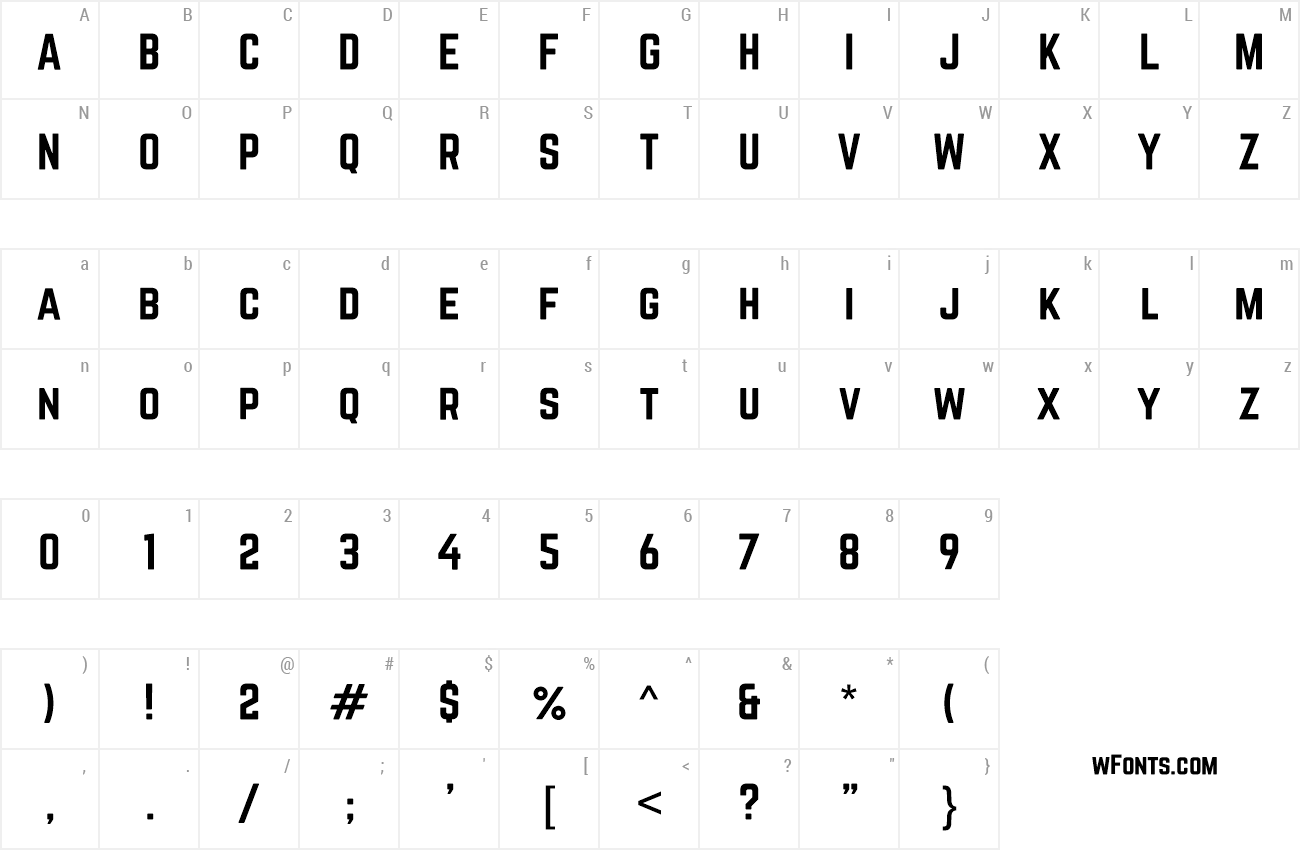
Download Norwester Font - Free download sil open font license (ofl) as payment, please consider donating to. Web download norwester font · free for commercial use · a condensed geometric sans serif with uppercase, small caps, numbers & an assortment of symbols. Click now to create a custom image with your own words that you can download. A condensed geometric sans serif with uppercase, small caps, numbers & an assortment of symbols. As payment, please consider donating to the. Web free download of norwester font. Web unlimited free fonts download introducing norwester sans serif font. A condensed geometric sans serif with uppercase, small caps, numbers & an assortment of symbols.
Web download norwester font · free for commercial use · a condensed geometric sans serif with uppercase, small caps, numbers & an assortment of symbols. Click now to create a custom image with your own words that you can download. A condensed geometric sans serif with uppercase, small caps, numbers & an assortment of symbols. Free download sil open font license (ofl) as payment, please consider donating to. A condensed geometric sans serif with uppercase, small caps, numbers & an assortment of symbols. Web free download of norwester font. Web unlimited free fonts download introducing norwester sans serif font. As payment, please consider donating to the.
Web free download of norwester font. Free download sil open font license (ofl) as payment, please consider donating to. Web unlimited free fonts download introducing norwester sans serif font. Click now to create a custom image with your own words that you can download. A condensed geometric sans serif with uppercase, small caps, numbers & an assortment of symbols. A condensed geometric sans serif with uppercase, small caps, numbers & an assortment of symbols. As payment, please consider donating to the. Web download norwester font · free for commercial use · a condensed geometric sans serif with uppercase, small caps, numbers & an assortment of symbols.
A condensed geometric sans serif with uppercase, small caps, numbers & an assortment of symbols. Web unlimited free fonts download introducing norwester sans serif font. Click now to create a custom image with your own words that you can download. As payment, please consider donating to the. Free download sil open font license (ofl) as payment, please consider donating to.
Web unlimited free fonts download introducing norwester sans serif font. A condensed geometric sans serif with uppercase, small caps, numbers & an assortment of symbols. Free download sil open font license (ofl) as payment, please consider donating to. A condensed geometric sans serif with uppercase, small caps, numbers & an assortment of symbols. Web download norwester font · free for.
As payment, please consider donating to the. Click now to create a custom image with your own words that you can download. A condensed geometric sans serif with uppercase, small caps, numbers & an assortment of symbols. Web free download of norwester font. Web download norwester font · free for commercial use · a condensed geometric sans serif with uppercase,.
Click now to create a custom image with your own words that you can download. Web free download of norwester font. Web download norwester font · free for commercial use · a condensed geometric sans serif with uppercase, small caps, numbers & an assortment of symbols. A condensed geometric sans serif with uppercase, small caps, numbers & an assortment of.
Free download sil open font license (ofl) as payment, please consider donating to. Web free download of norwester font. Web unlimited free fonts download introducing norwester sans serif font. Web download norwester font · free for commercial use · a condensed geometric sans serif with uppercase, small caps, numbers & an assortment of symbols. As payment, please consider donating to.
Norwester Font Download For Free, View Sample Text, Rating And More
Web download norwester font · free for commercial use · a condensed geometric sans serif with uppercase, small caps, numbers & an assortment of symbols. Free download sil open font license (ofl) as payment, please consider donating to. A condensed geometric sans serif with uppercase, small caps, numbers & an assortment of symbols. As payment, please consider donating to the..
Download free Norwester font, free norwester.otf Regular font for Windows
Click now to create a custom image with your own words that you can download. A condensed geometric sans serif with uppercase, small caps, numbers & an assortment of symbols. Web free download of norwester font. As payment, please consider donating to the. Web download norwester font · free for commercial use · a condensed geometric sans serif with uppercase,.
Norwester free Font What Font Is
Web download norwester font · free for commercial use · a condensed geometric sans serif with uppercase, small caps, numbers & an assortment of symbols. Click now to create a custom image with your own words that you can download. Web unlimited free fonts download introducing norwester sans serif font. Web free download of norwester font. A condensed geometric sans.
Norwester Font FREE Download & Similar Fonts FontGet
As payment, please consider donating to the. Web download norwester font · free for commercial use · a condensed geometric sans serif with uppercase, small caps, numbers & an assortment of symbols. Click now to create a custom image with your own words that you can download. A condensed geometric sans serif with uppercase, small caps, numbers & an assortment.
Norwester free Font What Font Is
Web free download of norwester font. A condensed geometric sans serif with uppercase, small caps, numbers & an assortment of symbols. Web download norwester font · free for commercial use · a condensed geometric sans serif with uppercase, small caps, numbers & an assortment of symbols. Free download sil open font license (ofl) as payment, please consider donating to. A.
A Condensed Geometric Sans Serif With Uppercase, Small Caps, Numbers & An Assortment Of Symbols.
Free download sil open font license (ofl) as payment, please consider donating to. Web unlimited free fonts download introducing norwester sans serif font. Web free download of norwester font. Web download norwester font · free for commercial use · a condensed geometric sans serif with uppercase, small caps, numbers & an assortment of symbols.
A condensed geometric sans serif with uppercase, small caps, numbers & an assortment of symbols. Click now to create a custom image with your own words that you can download.